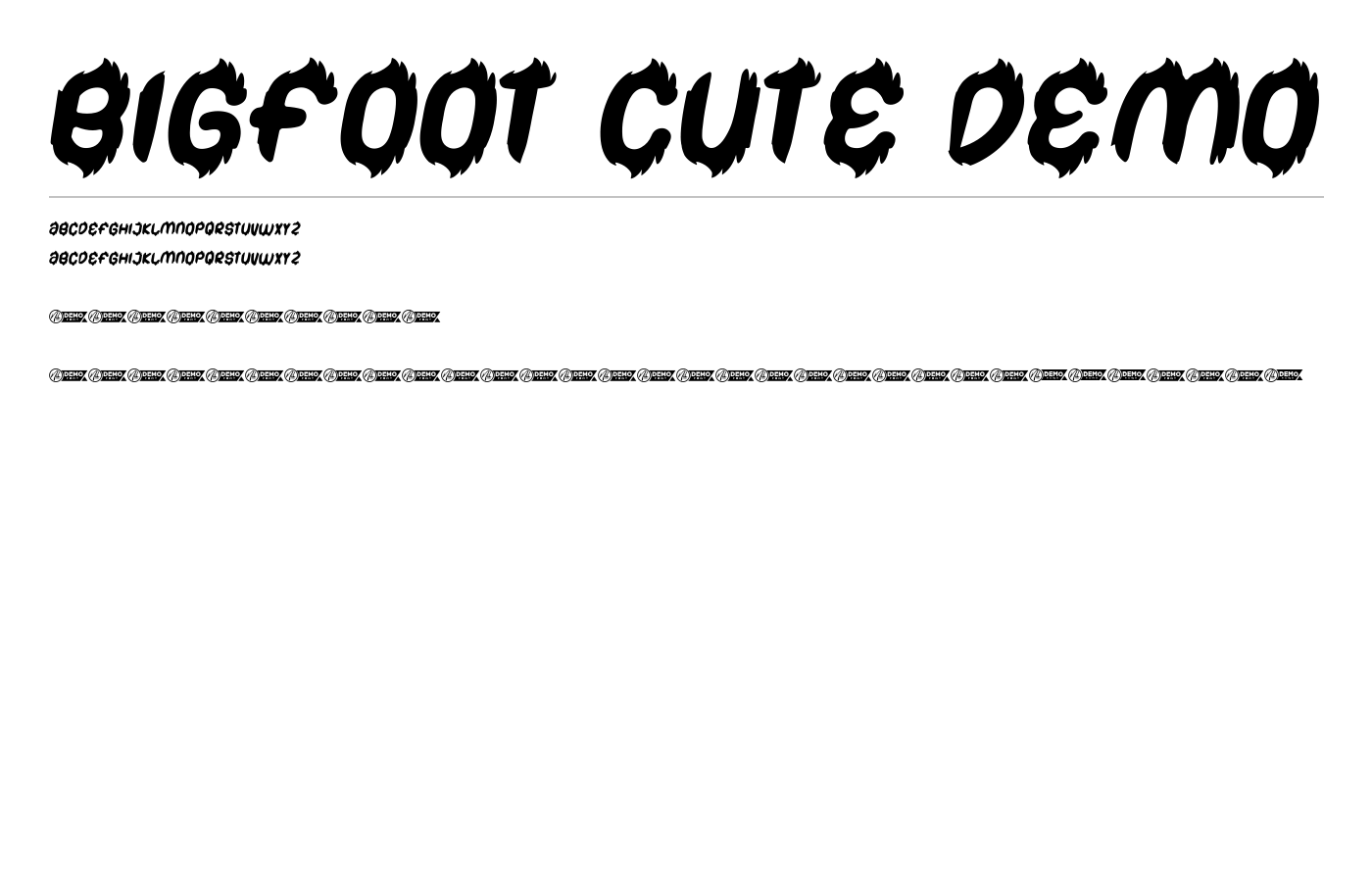
Bigfoot Cute Demo is a bold, playful display font with a chunky, irregular shape that gives it a fun and quirky personality. Its thick strokes and fuzzy, uneven edges create a whimsical, hand-drawn feel perfect for eye-catching headlines, logos, or children's designs. This font works best where a lively, informal tone is needed to stand out and bring a sense of energy and charm.
Bigfoot Cute Demo Font
About Bigfoot Cute Demo Font